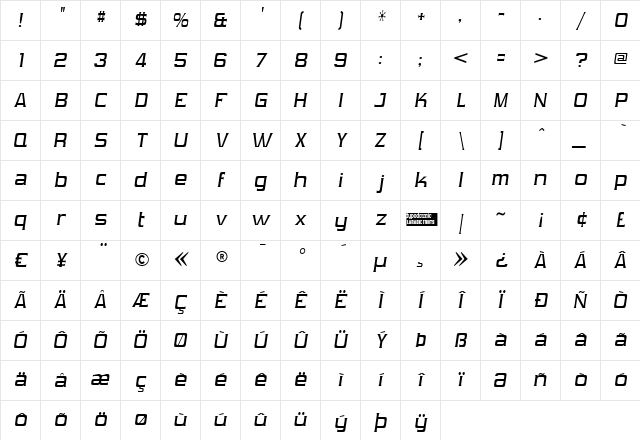
Vibrocentric Italic Free Font
Vibrocentric Italic
Design Context for Vibrocentric
Vibrocentric is a composed and adaptable typeface that performs quietly and consistently across a wide range of design contexts. The slanted form adds forward momentum and visual energy.